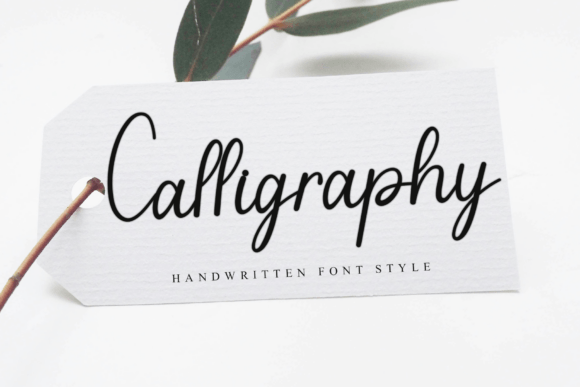
The Art of Elegant Typography: Calligraphy Font
As a designer, have you ever found yourself stuck in a creative rut, searching for that perfect font to elevate your project? It’s a feeling we’ve all been there, staring blankly at our screens, willing the inspiration to strike. But what if I told you that the solution lies in a timeless classic, one that exudes sophistication and elegance? Enter the world of Calligraphy Font, a stylish handwritten font that’s sure to take your designs to the next level.
With its contemporary atmosphere and impeccable form, the Calligraphy Font is the perfect addition to any project. Whether you’re working on a wedding invitation, a logo design, or a marketing brochure, this font is sure to bring a touch of class and sophistication. And for designers, it’s a valuable tool that can help you stand out from the crowd and make a lasting impression.
Key Features of Calligraphy Font
- Font Style: Elegant, cursive script with flourishes and swashes, ideal for formal and decorative purposes.
- Font Size: Highly scalable, with optimal results at sizes ranging from 12pt to 48pt, making it suitable for headings, titles, and body text.
- Unique Characteristics: Includes a range of ligatures, swashes, and flourishes to add a touch of sophistication and elegance to your designs.
- Language Support: Supports a wide range of languages, including Latin, Cyrillic, and Greek, making it a versatile choice for global applications.
Calligraphy Font Review
Overall, I think the Calligraphy Font has a lot of potential, but it’s not perfect. Let’s break it down.
- The font’s elegant and cursive design makes it perfect for adding a touch of sophistication to any project.
- It’s highly customizable, with a wide range of sizes and styles available.
- The font is compatible with most devices and operating systems, making it a great choice for cross-platform use.
- The font can be quite difficult to read at small sizes, making it less suitable for body text.
- The design can come across as overly ornate or cluttered, which may not be suitable for all projects.
- The font lacks a clear bold weight, which can make it difficult to use in headings or titles.
In conclusion, the Calligraphy Font is a great choice for projects where a touch of elegance is needed. However, it may not be the best choice for projects that require clear and readable body text. With a little creative license and careful use, this font can add a beautiful touch to any design.
Calligraphy font is commonly used for:
- Special occasion announcements (e.g. birthdays, graduations)
- Formal event invitations and programs